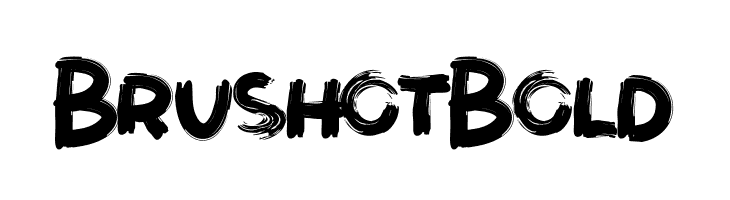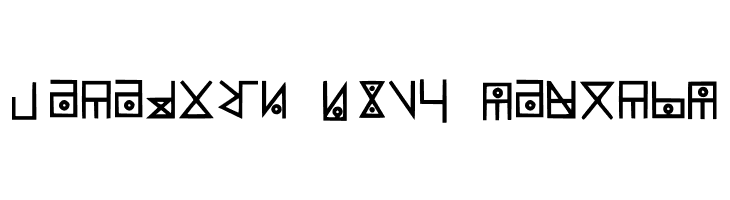
A decorative, geometric font with a cryptic and futuristic design.
A playful, handwritten-style font with a whimsical and friendly appearance.
A classic serif font with elegant strokes and medium contrast, perfect for traditional and refined designs.
A sleek, modern, light italic font with clean, streamlined letterforms.
A casual, handwritten-style font with a playful and informal appearance.
A bold, edgy font with a dynamic and irregular style.
A dynamic, cursive font with elegant, sweeping strokes and interconnected letters.
A playful, handwritten font with a dynamic and informal style.
A graceful and elegant script font with a natural, handwritten style.
An elegant, whimsical script font with decorative loops and swirls.